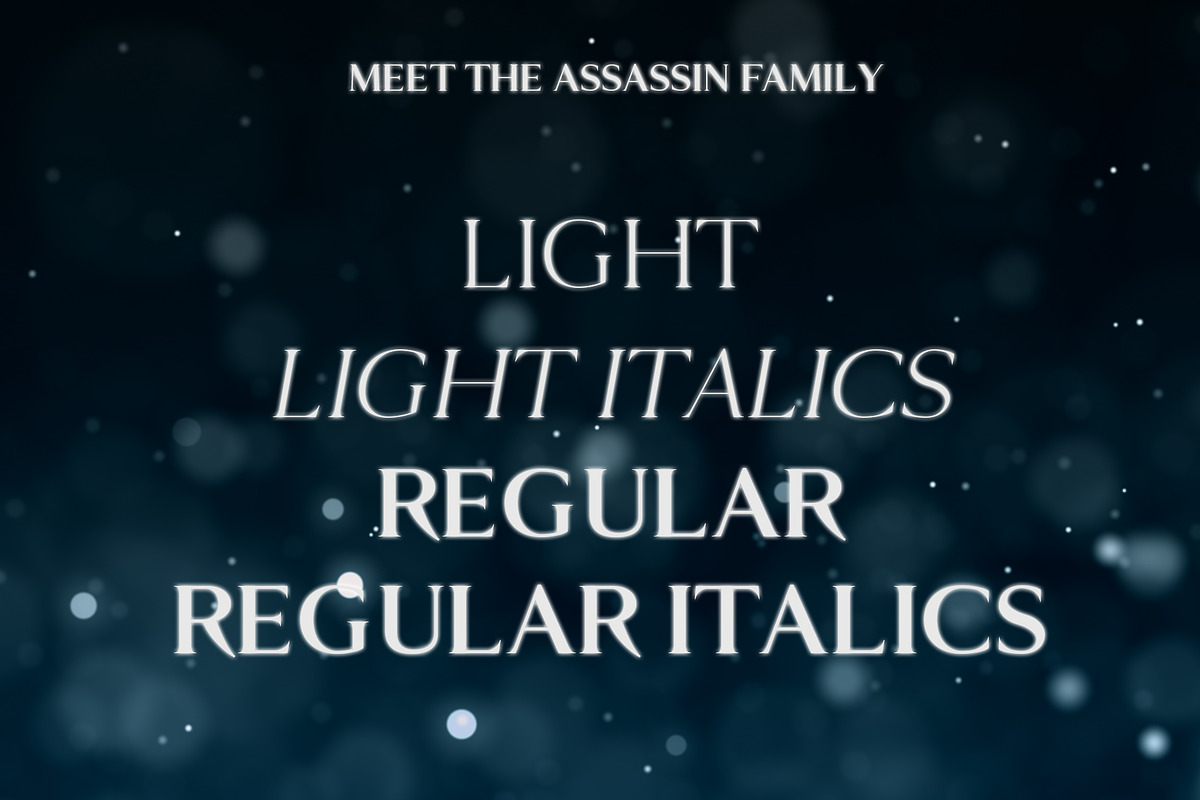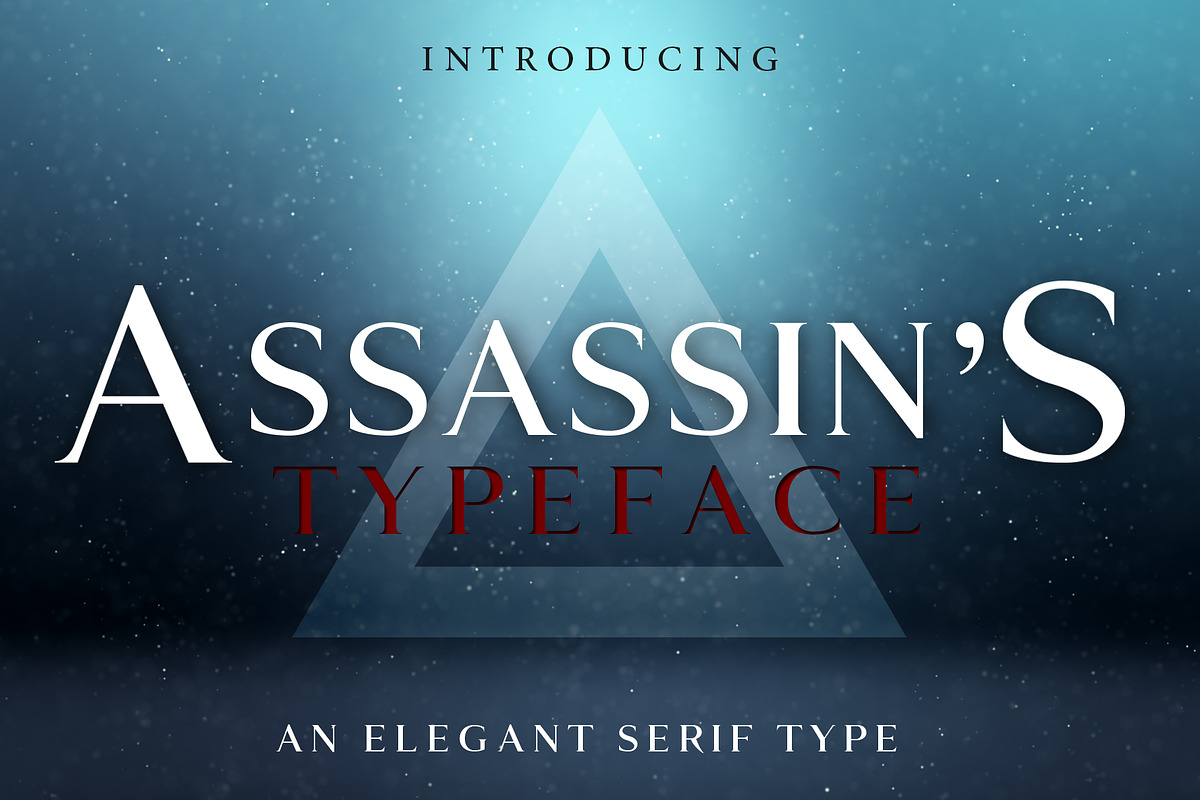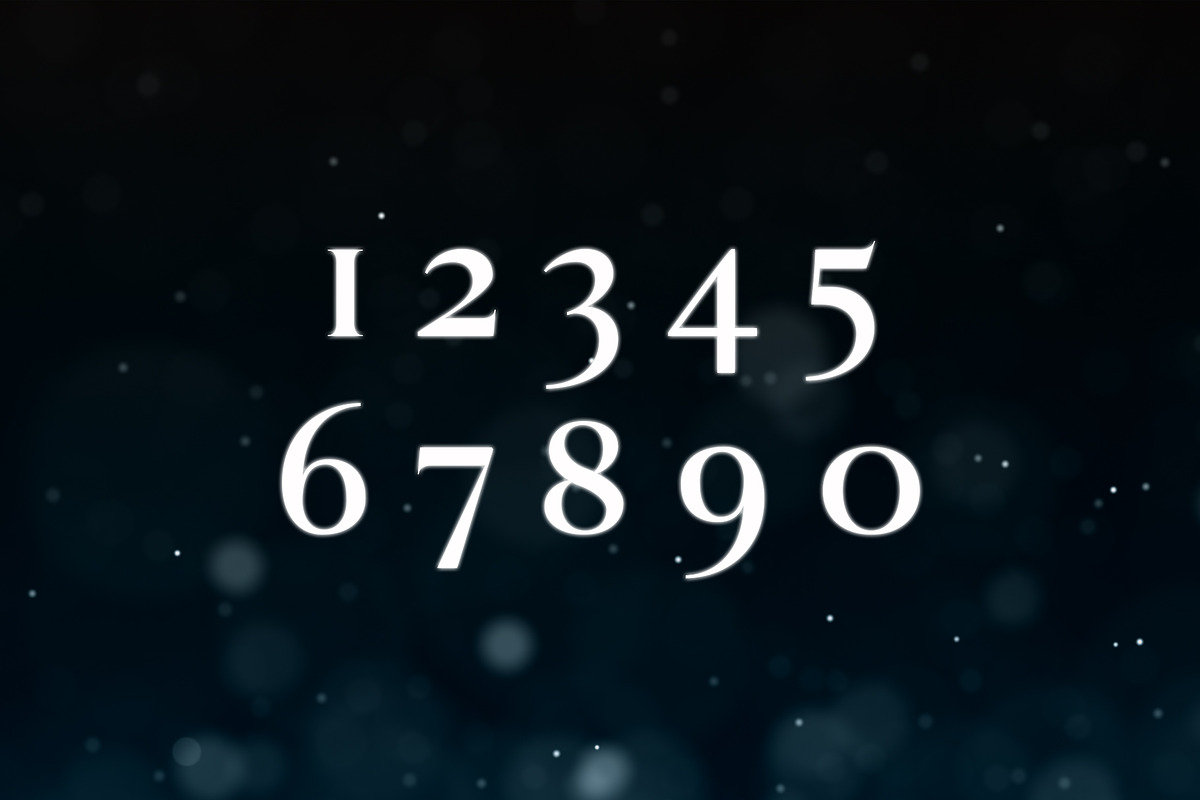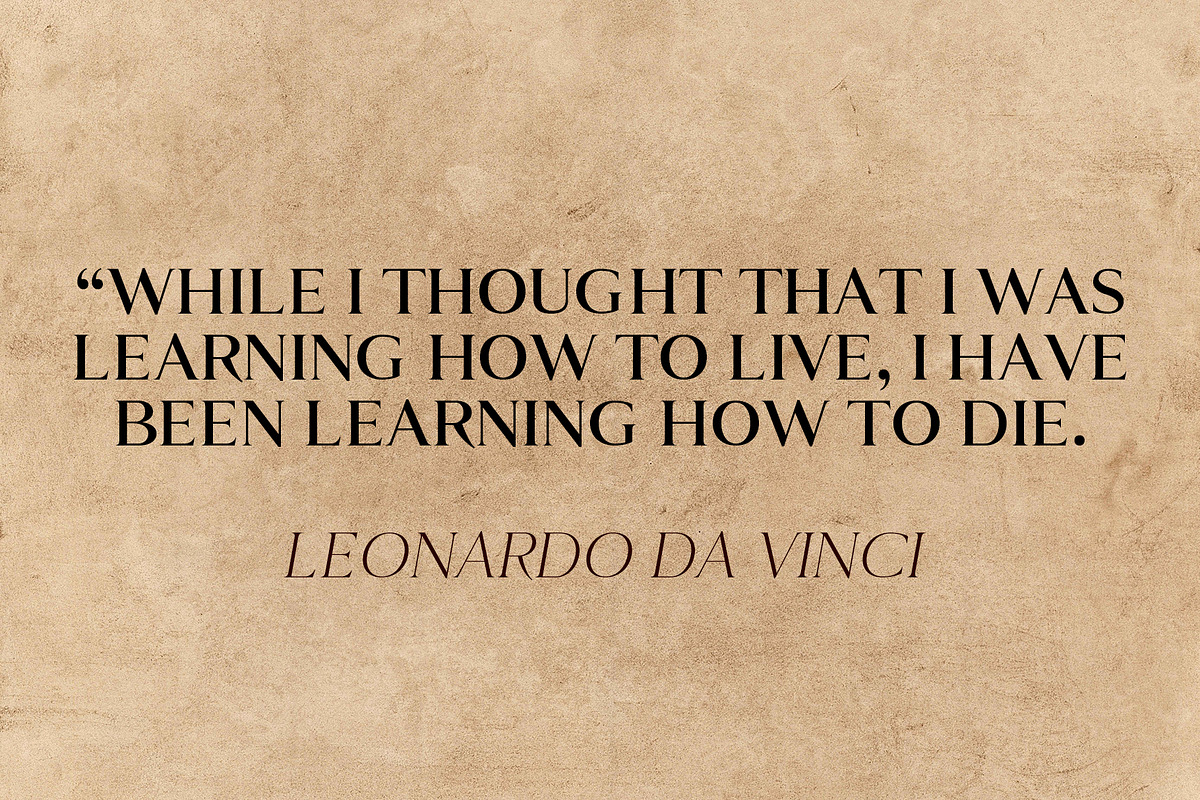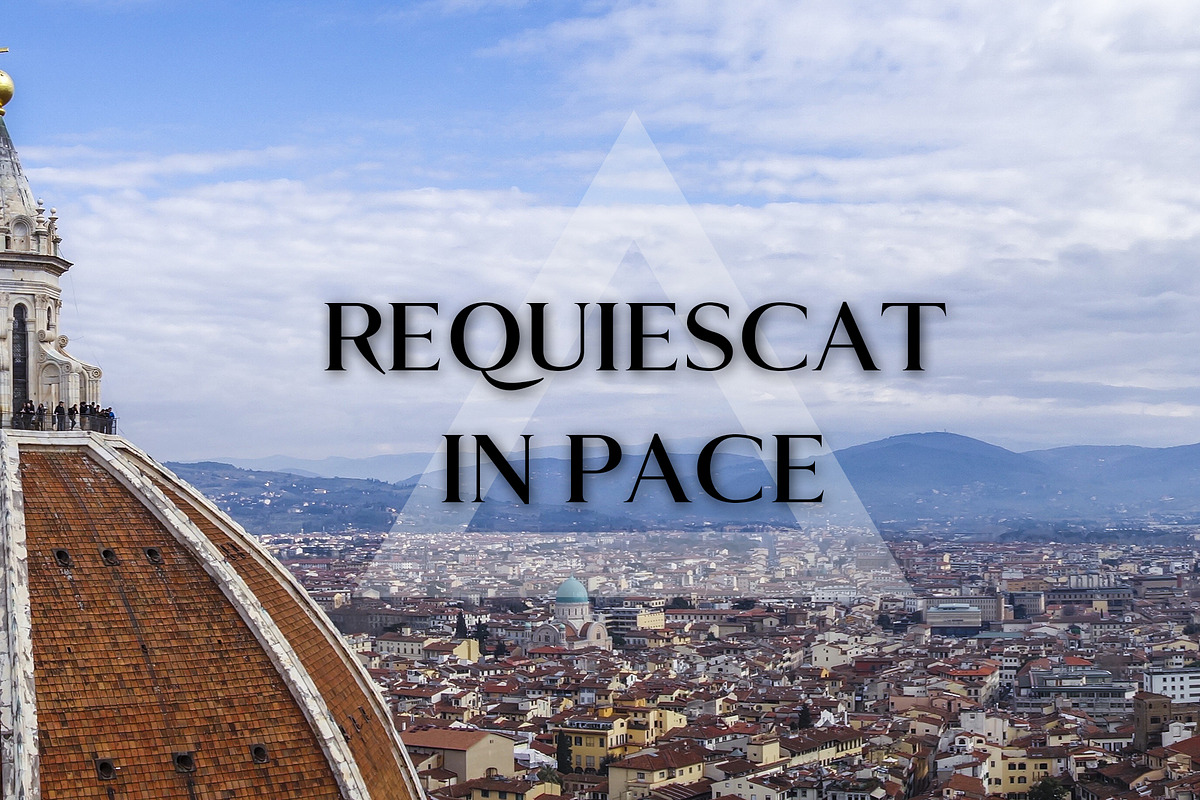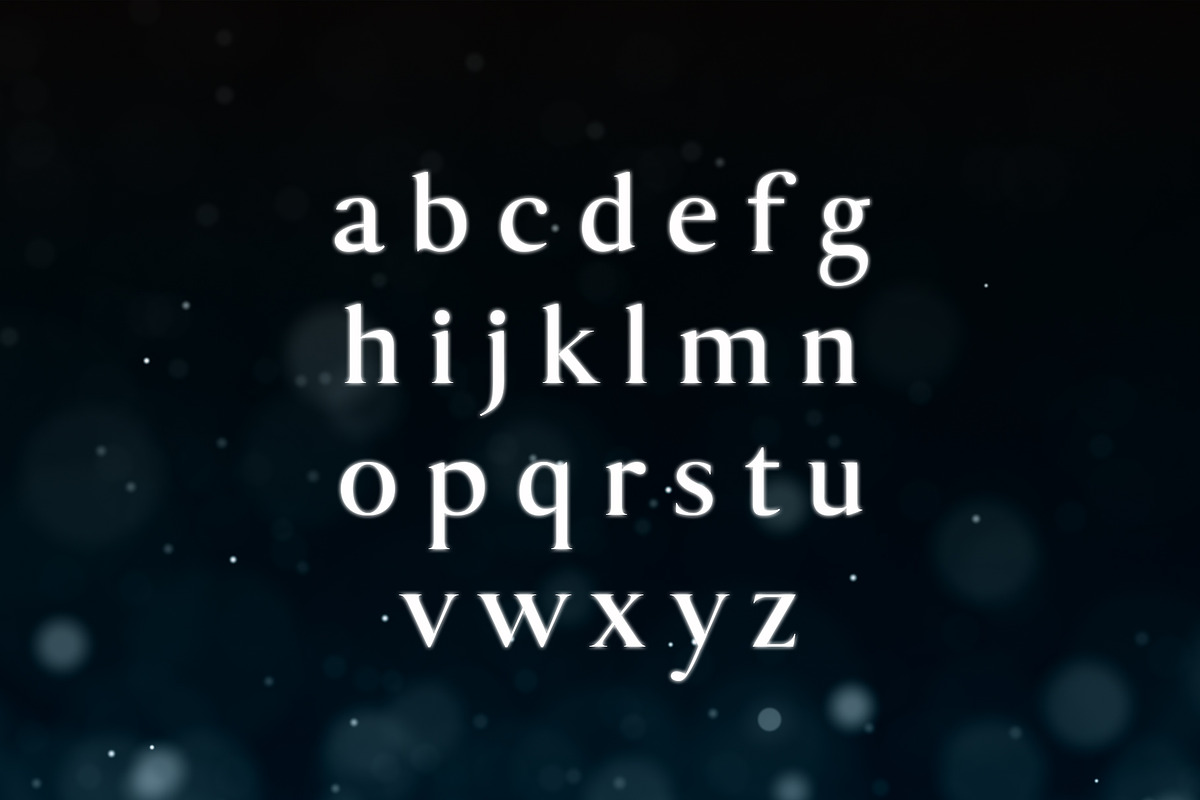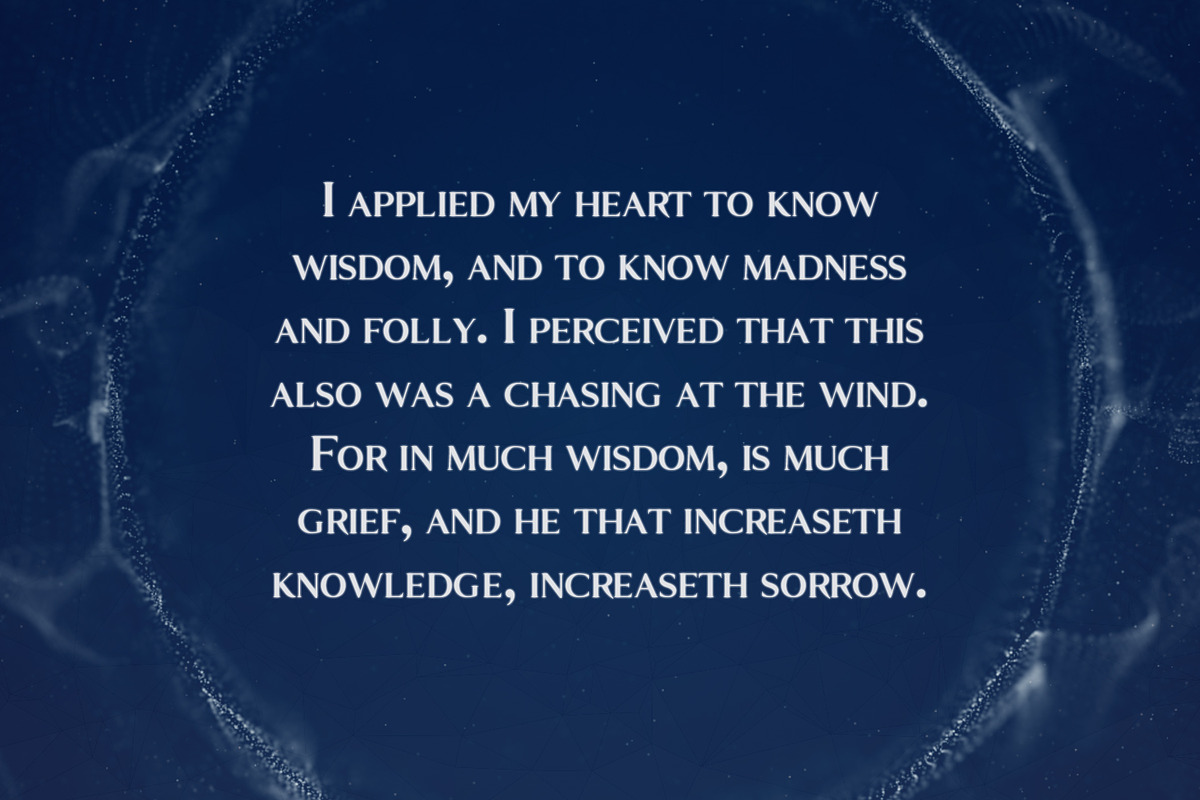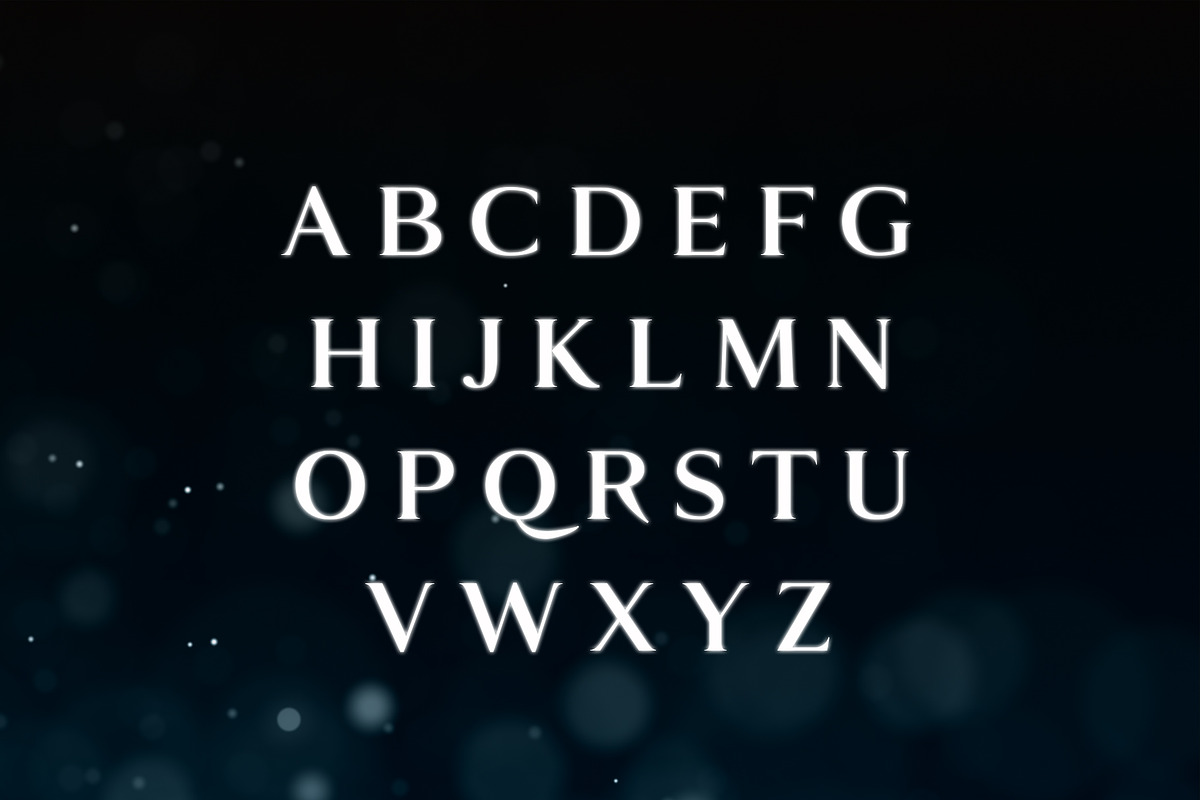
ASSASSIN'S - An Elegant Typeface
A typeface inspired by the video game series. This typeface uses an elegant serif style that is perfect for wordmark logos, mastheads, pull quotes & monograms showing both feminine and masculine qualities. This font comes in regular, bold, light and light italics. It comes with special characters.
- It comes with special characters.